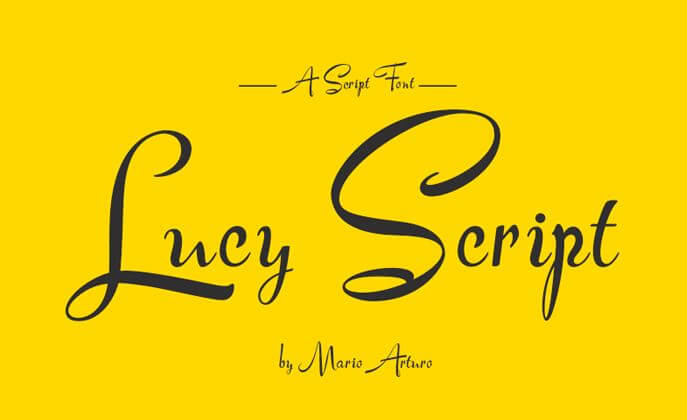
Lucy Script Font
Mario Arturo originally designed Lucy Script. The uppercase letters are referred to as “individual capitals,” which were inspired by the Intro font. Lucy Script features beautiful honey-style typefaces similar to Intro font.
The artists must have long periods of experience and know-how in the subject of calligraphy. It is a typeface influenced by means of the letters brush.
Style Of Lucy Script Font